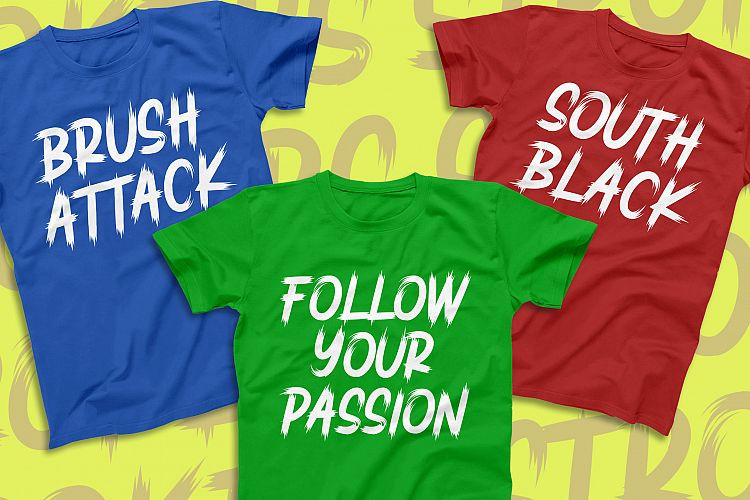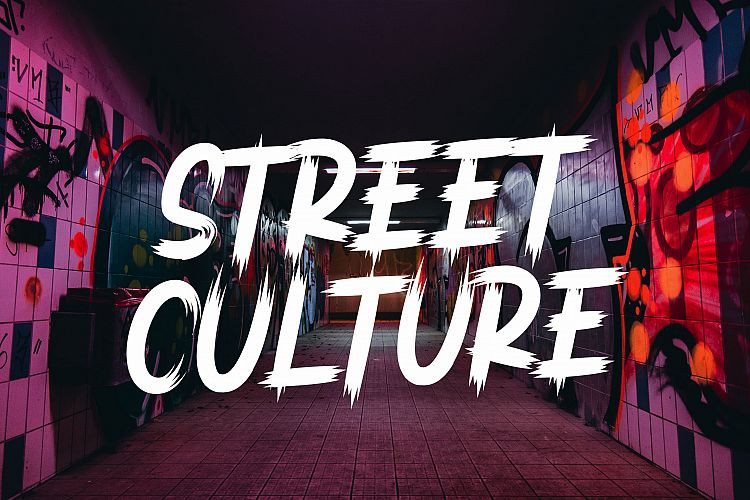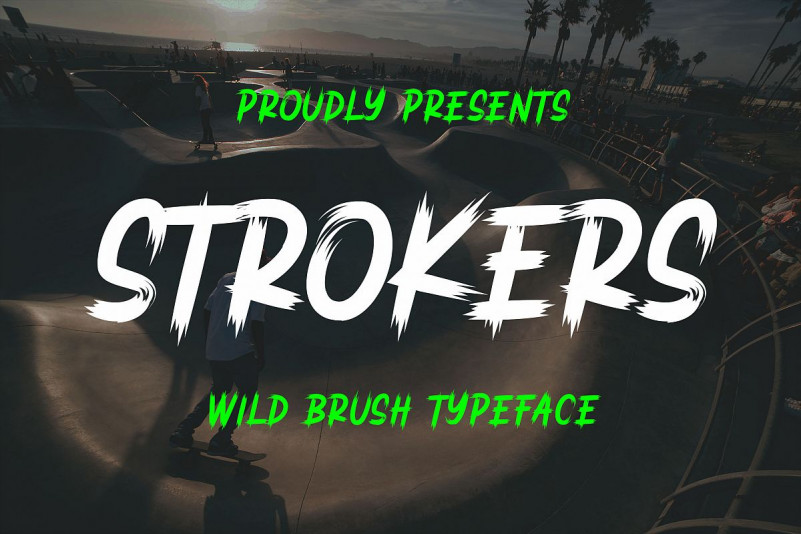
Strokers Font
Introducing of our new product the name is Strokers Wild Brush Typeface. Strokers is Urban style good for  poster, logotype, t-shirt design, apparel, clothing, branding etc